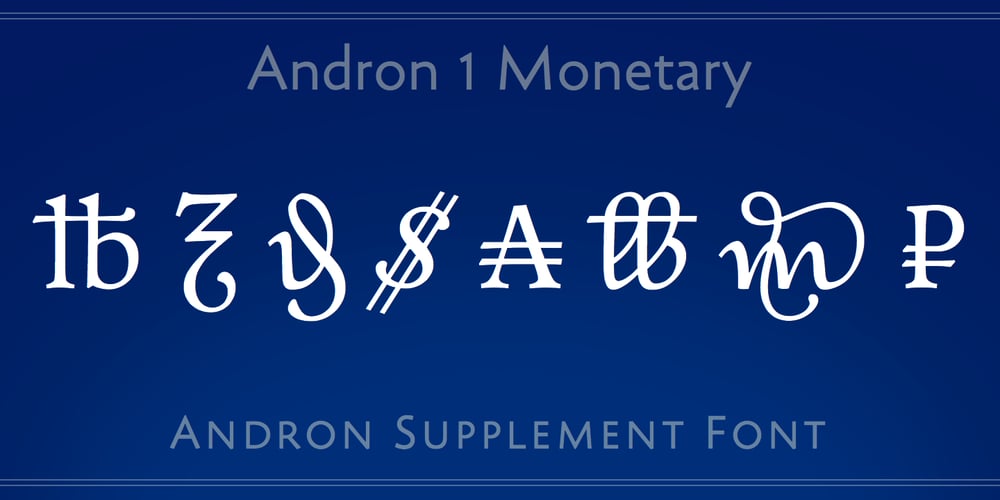
Andron 1 Monetary
Andron 1 Monetary font
Andron 1 Monetary Font Family was designed by Andreas Stötzner and published by SIAS. Andron 1 Monetary contains 1 styles and family package options. Andron 1 Monetary is a special supplement font containing 120 monetarian and weight measurement characters, both historical and modern. It provides a most comprehensive repertoir of even older currency unit signs as testified in manuscripts and printed sources. Among the most recently launched national currency signs, the Rubel, Manat and Turkish Lira characters are present with their new Unicode values. – All glyphs are drawn in the classical Andron style and blend perfectly with all other Andron fonts. – This font is a valuable addition to your Andron library.